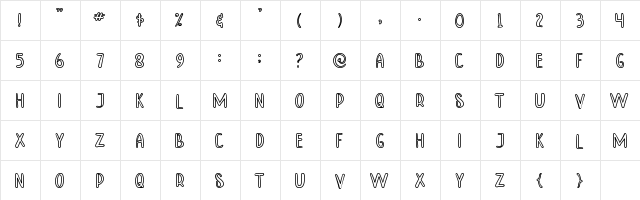
TINNY HURRY OUTLINE Regular
| Designer | MJB Letters 2018 |
Design Context for TINNY HURRY OUTLINE Typeface
TINNY HURRY OUTLINE is built around its visual character rather than neutral utility — its distinctive forms are designed to make an impression at display sizes.
Font Pairing: Pair with a clean neutral sans-serif for body copy to let TINNY HURRY OUTLINE's character lead without overwhelming the composition.
Pro Tip: Use TINNY HURRY OUTLINE exclusively at display sizes — it was designed to be seen, not read at length. Let a neutral companion handle body copy.